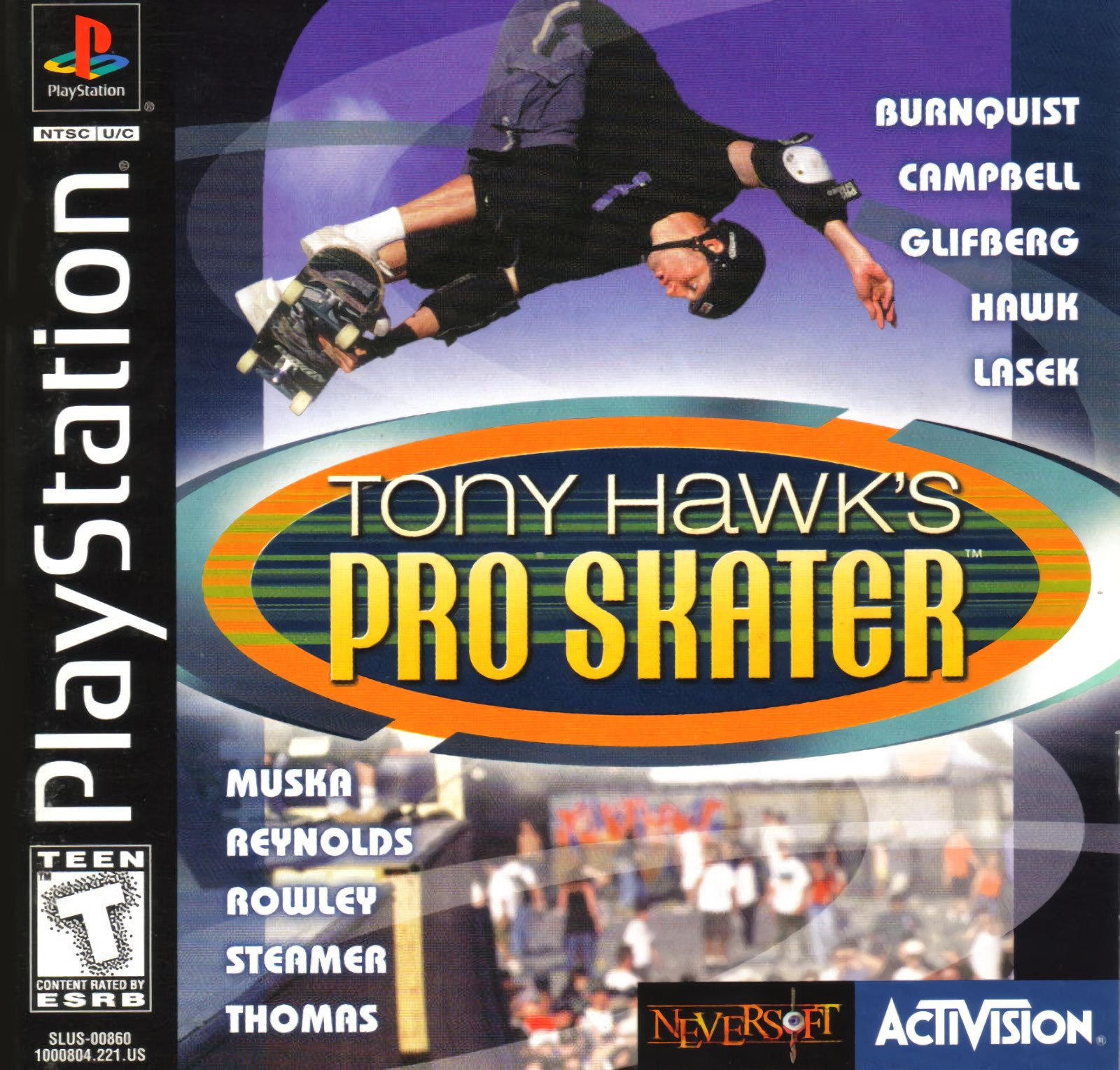
Tony Hawk's Pro Skater Font
Fonts in UseTony Hawk’s Pro Skater is a skateboarding video game series that started in 1999, featuring various professional skateboarders and a mix of arcade-style gameplay and realistic physics.
The game's title "Tony Hawk’s Pro Skater" is a fusion of the typefaces Helvetica Light Extended, with a slightly altered version of Lithia Bold. Meanwhile, the names of ten actual skateboarders are presented in Bauhaus Heavy font.